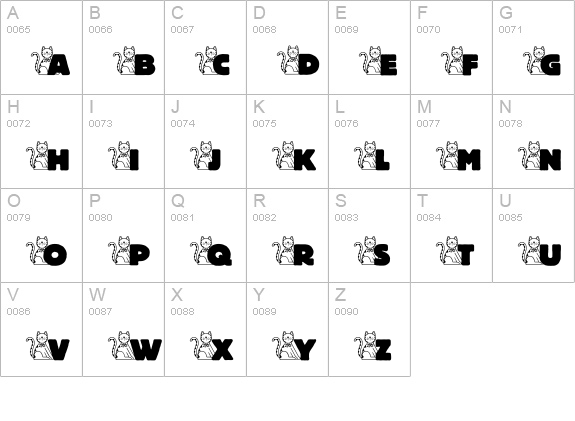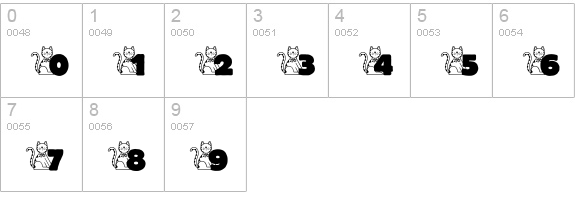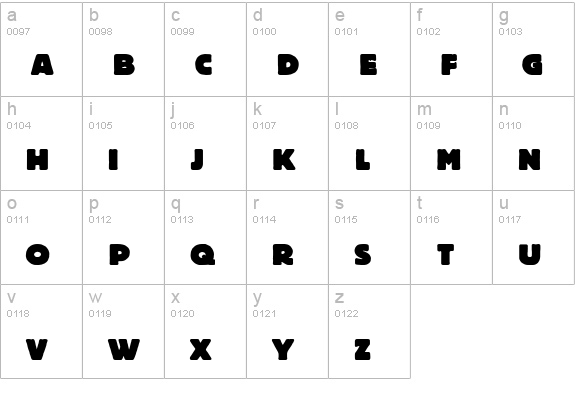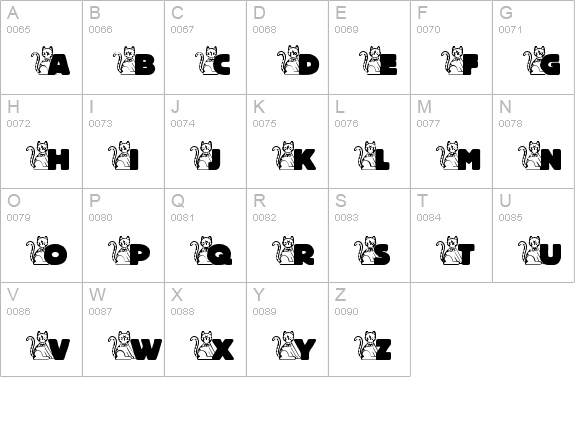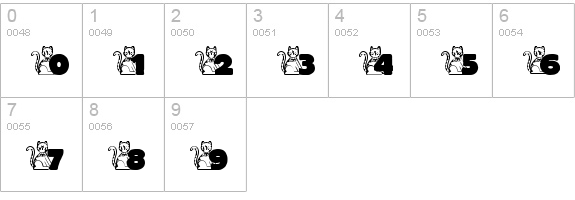
LD Cats Font Details
Introducing LD Cats, a playful and whimsical font that will bring a touch of feline charm to your designs. This delightful typeface is perfect for anyone looking to add a dash of cuteness and personality to their projects. With its curvy and rounded letterforms, LD Cats exudes a sense of warmth and friendliness. Each character has been meticulously crafted to capture the essence of a cat's grace and elegance, making it a truly unique and eye-catching font. But what sets LD Cats apart is that it is not only a beautiful font, but it is also free! Yes, you read that right. This amazing typeface is freely available to download at FontsMarket.com, allowing you to unleash your creativity without any financial constraints. Whether you're designing greeting cards, invitations, posters, or anything in between, LD Cats will add that extra touch of charm and whimsy that will make your work stand out. Its versatility allows it to be used in a wide range of contexts, from children's books to branding and packaging. So why wait? Download LD Cats for free at FontsMarket.com and let your imagination run wild. Embrace the playful spirit of this font and watch as your designs come to life with a touch of feline magic. Don't miss out on this opportunity to elevate your design game with a font that is both beautiful and free.